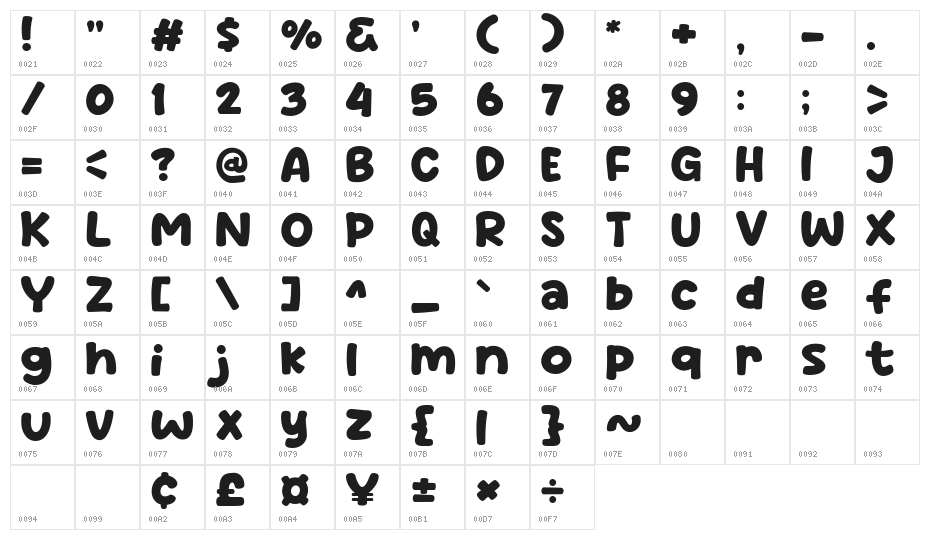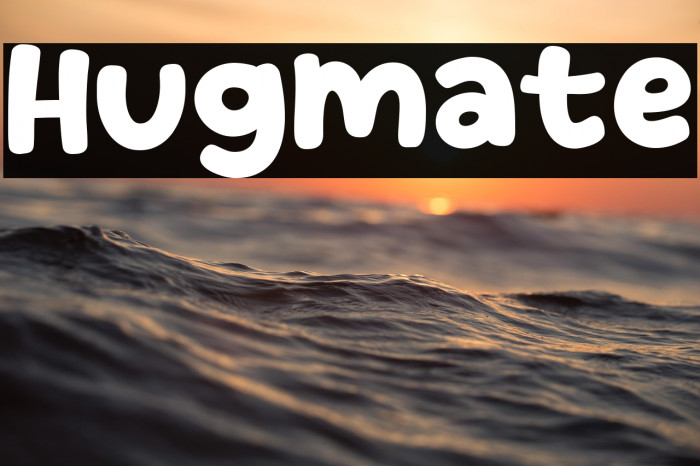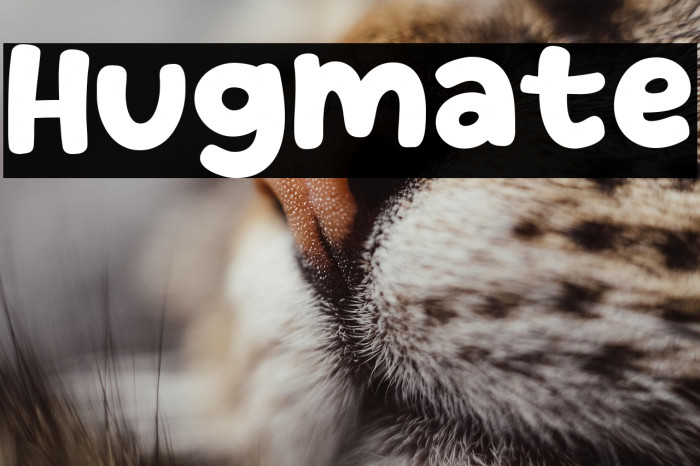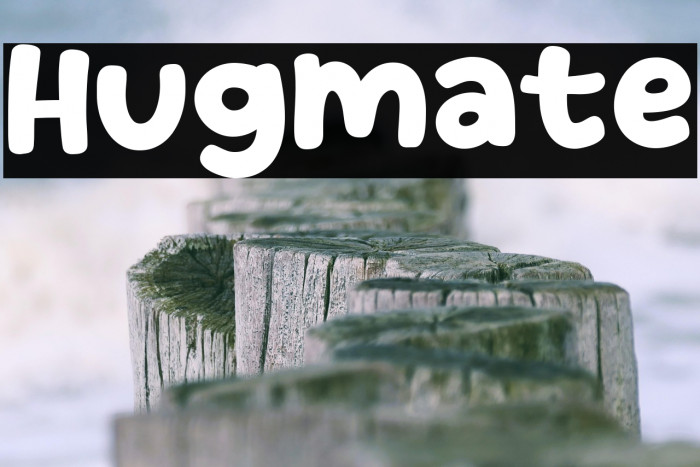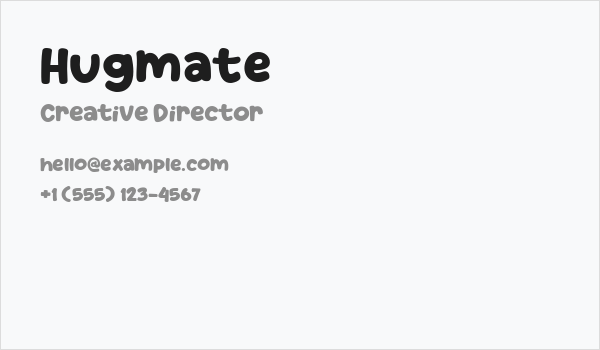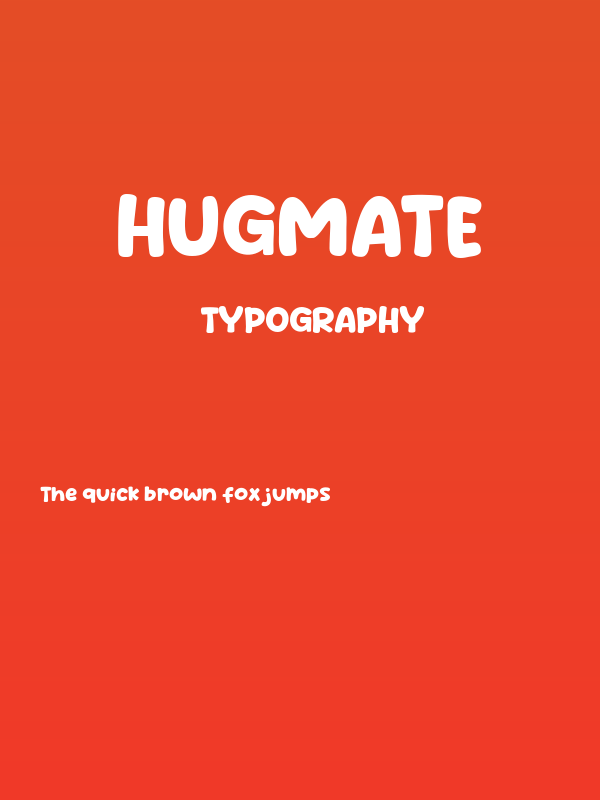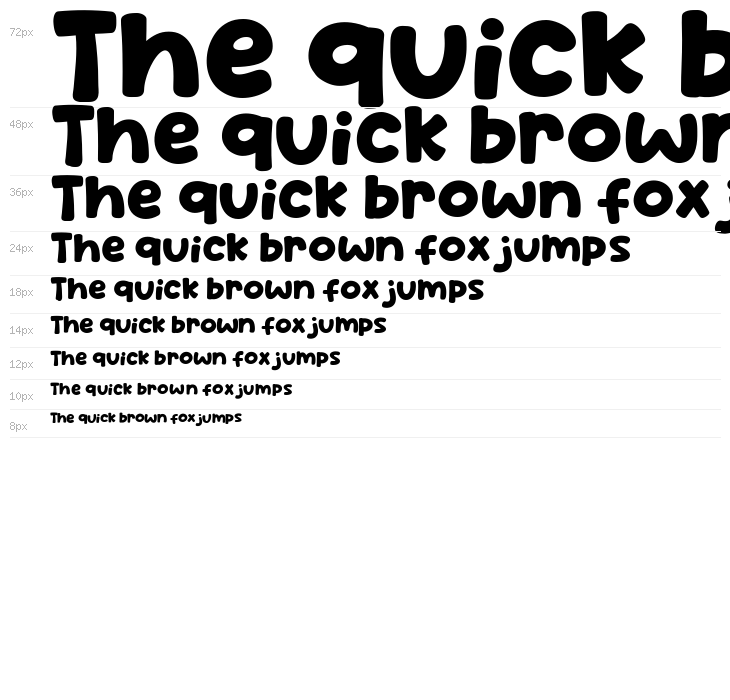
Hugmate Font
Hugmate Description
This playful and bold font features rounded, bubbly characters that exude a sense of fun and approachability. The letters are thick and have a consistent stroke width, giving them a strong presence on the page. The rounded edges and soft curves contribute to a friendly and informal appearance, making it ideal for projects that aim to convey warmth and creativity. The font includes a full set of uppercase and lowercase letters, numbers, and a variety of special characters, ensuring versatility in design applications.
| Overall Style | Playful |
| Proposed Projects | Ideal for children's books, playful branding, party invitations, and casual social media graphics. |